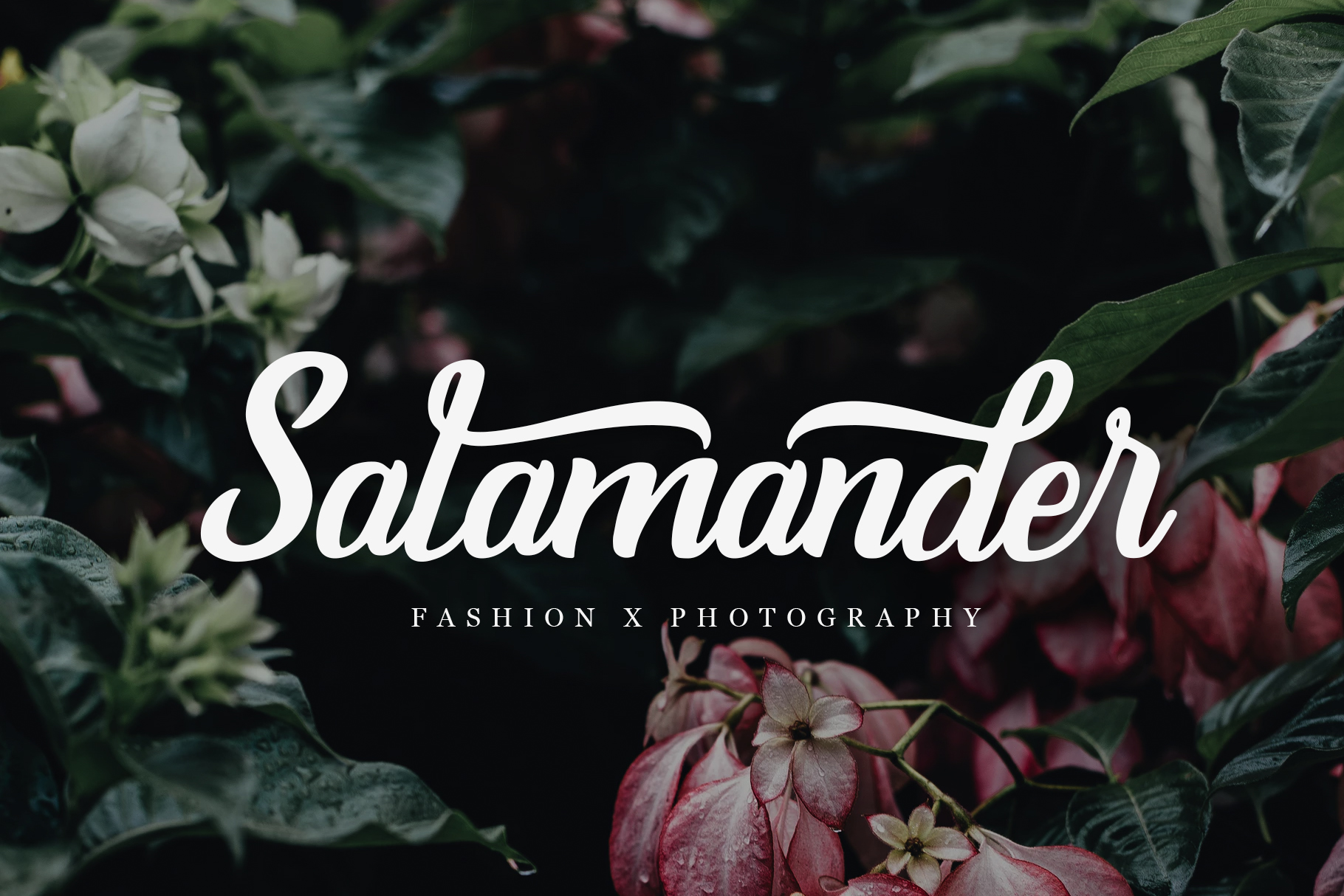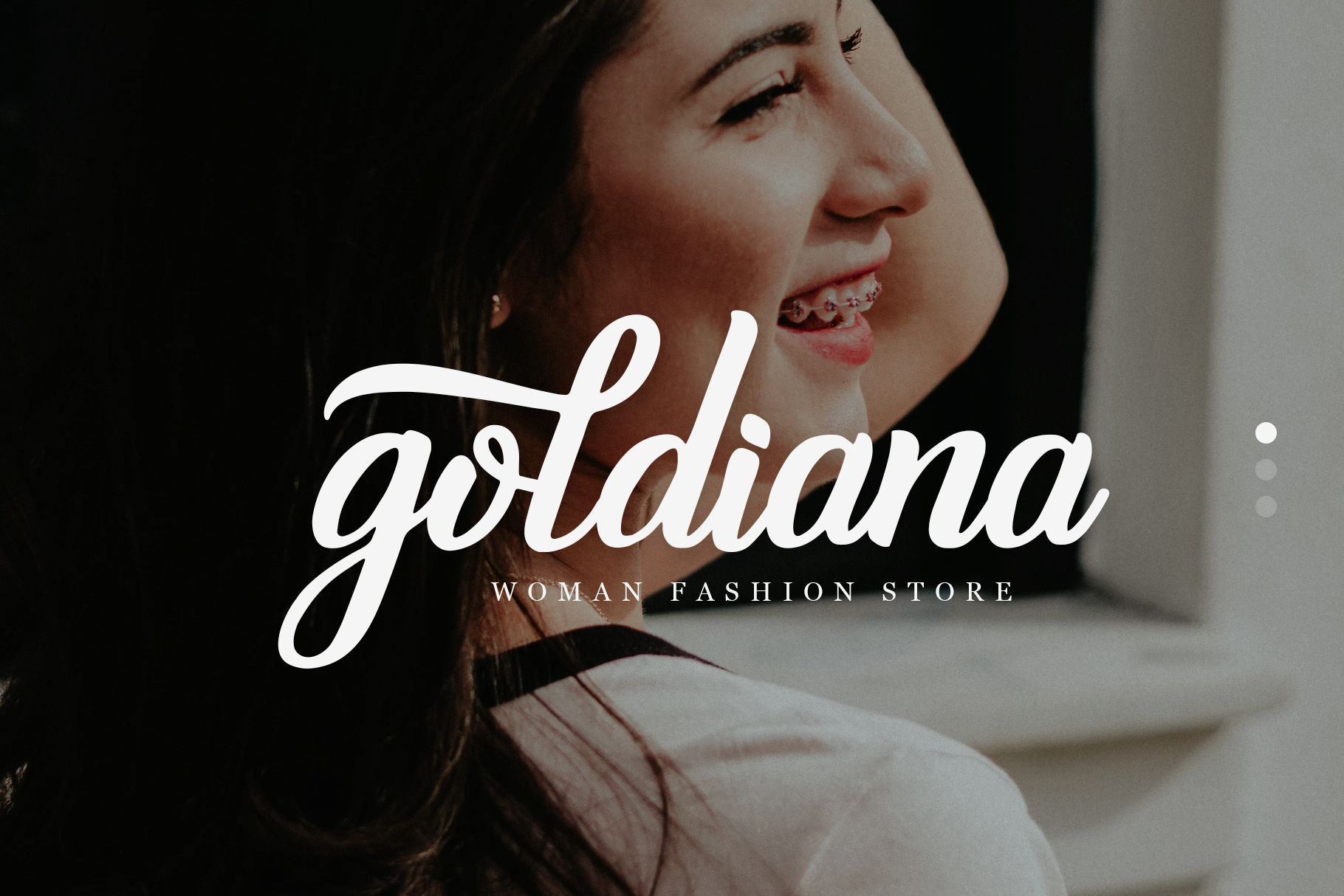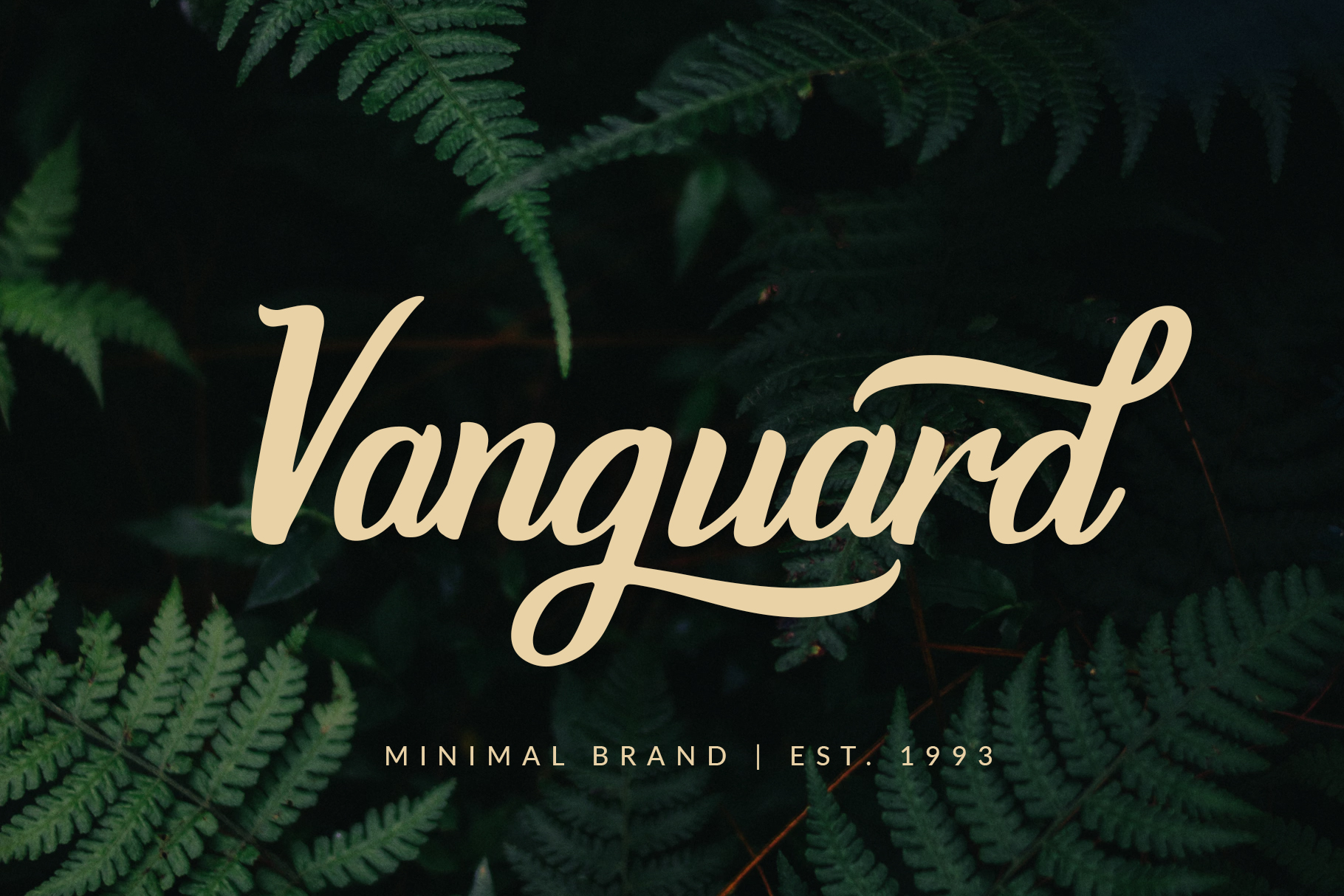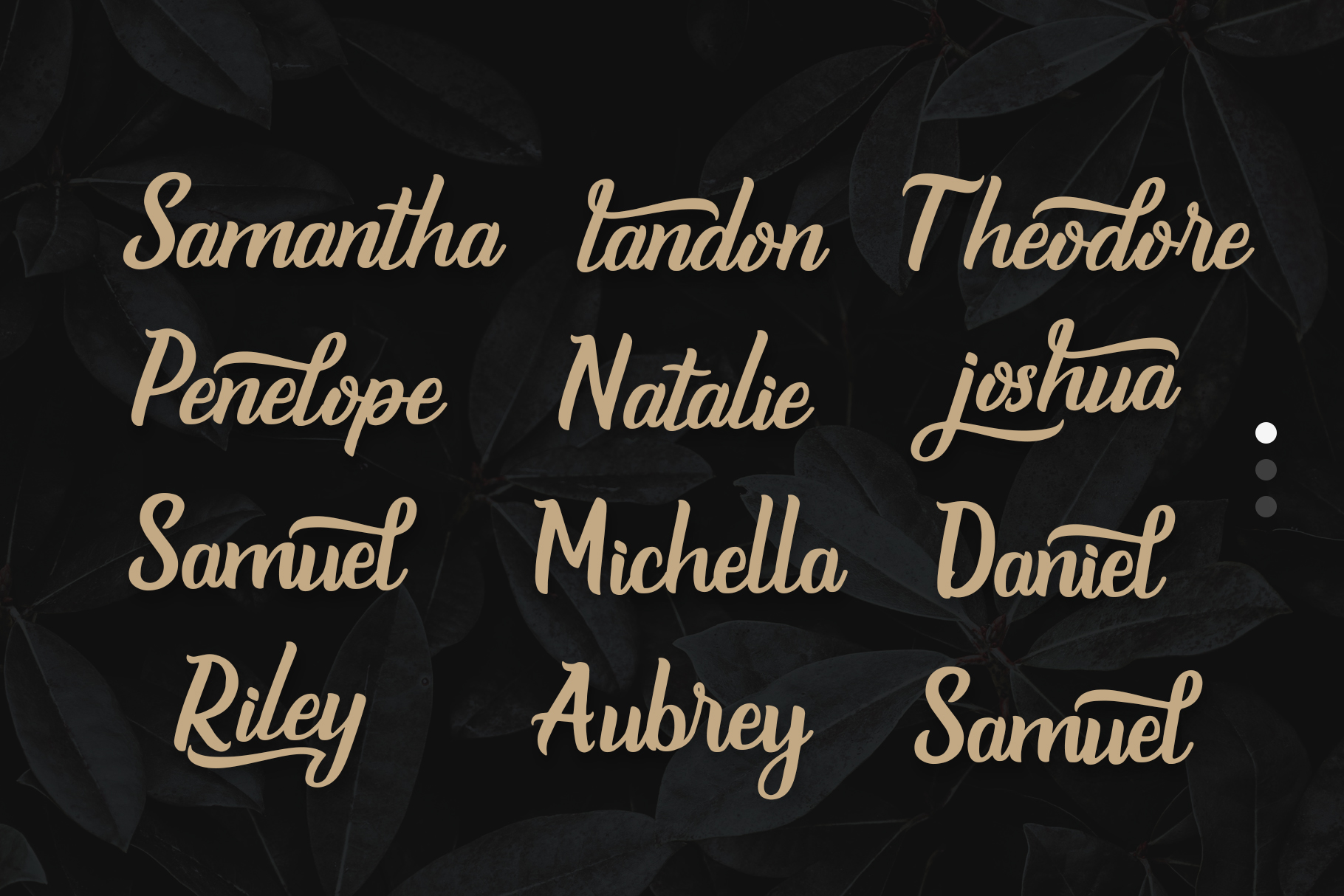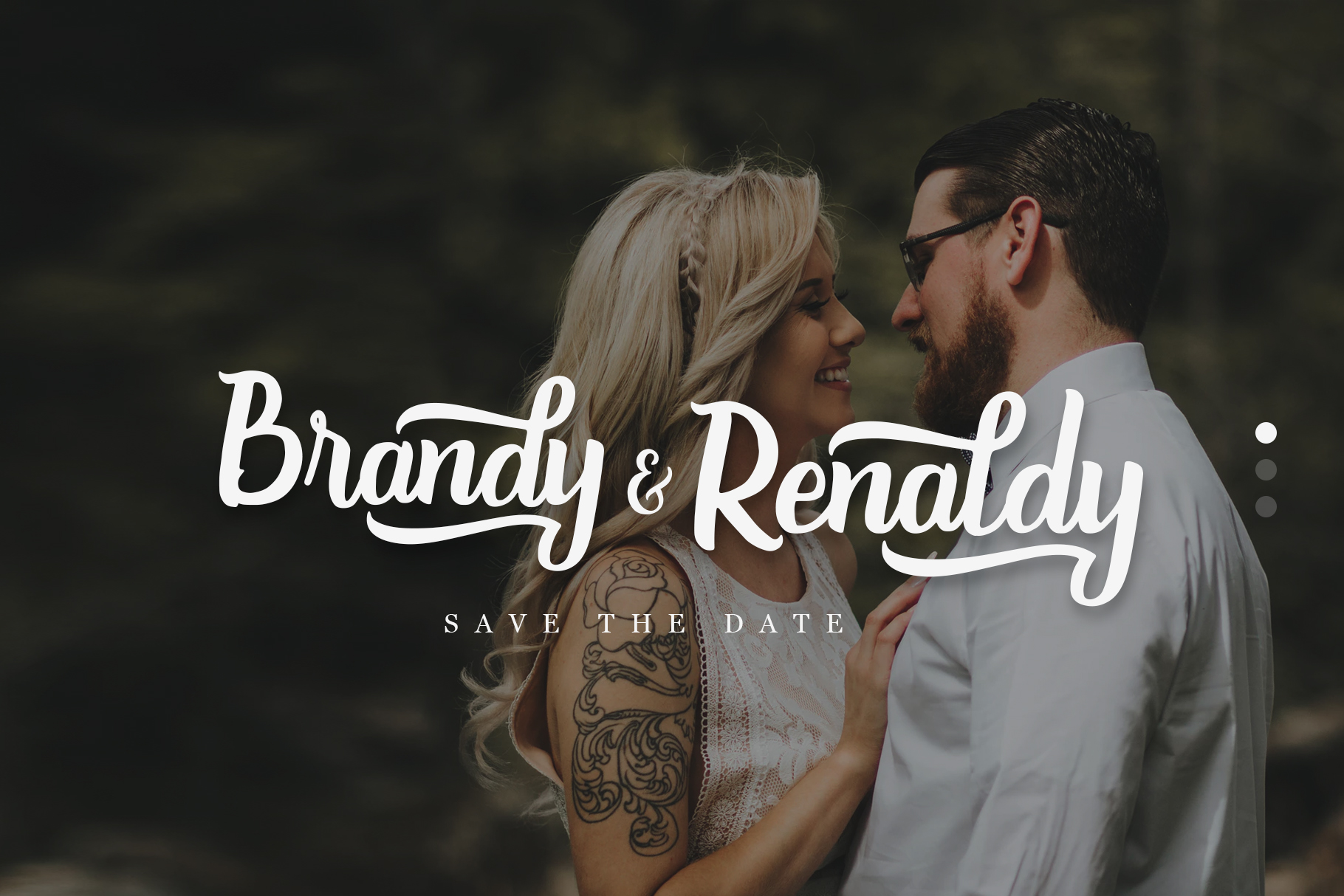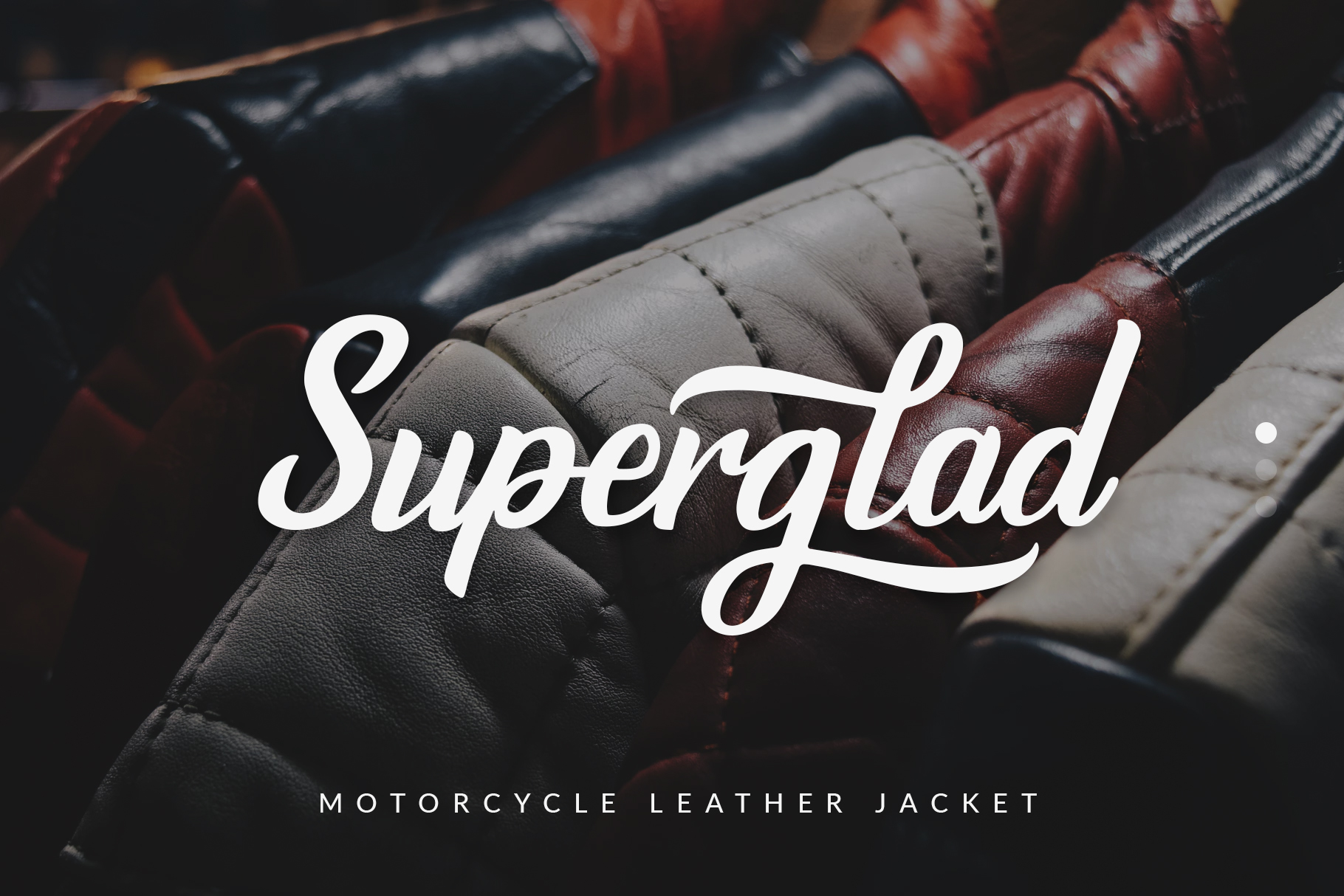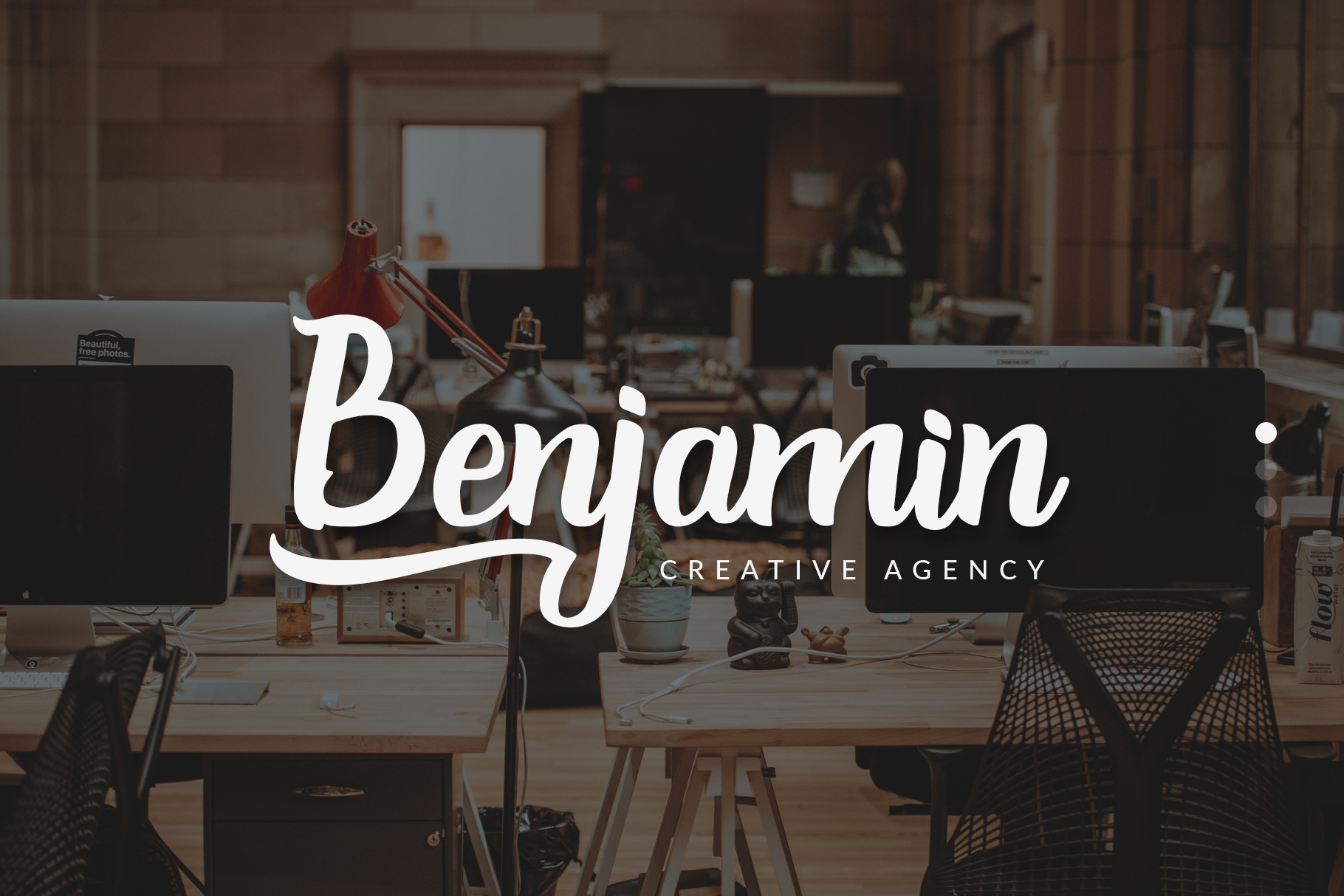
Burgundy Font
About Burgundy Font
Burgundy is an extraordinary font, one that is absolutely perfect for headlines and display designs. Both elegant and striking, Burgundy is guaranteed to be your new favorite script style.